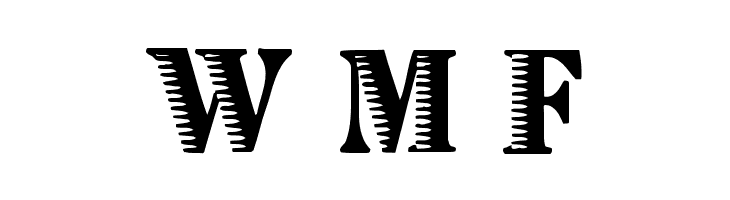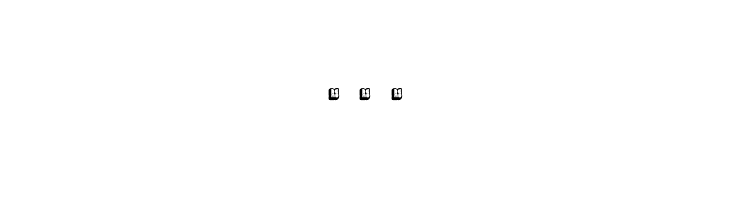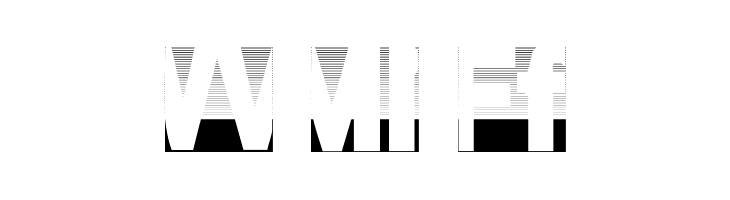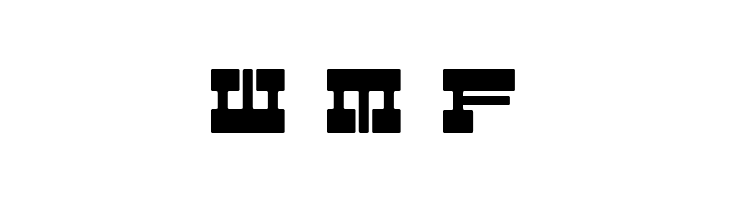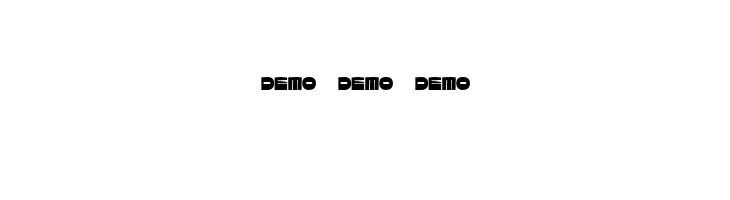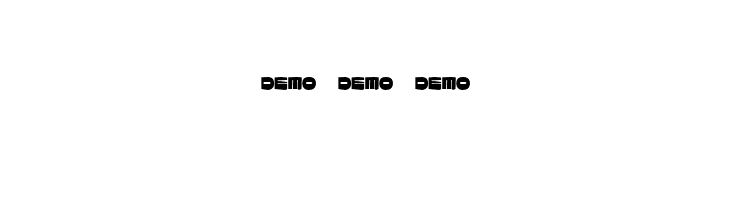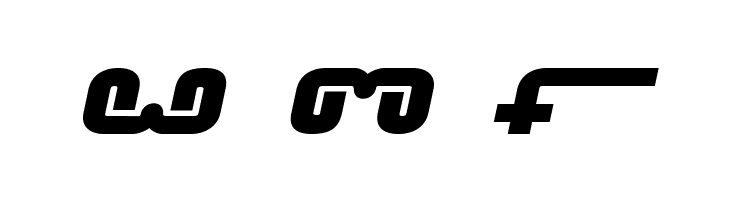
• YUKATHIN_N.CONTE SMILE
A playful and dynamic script font with smooth, flowing lines and a handwritten appearance.
• Yytrium
A bold, 3D-effect font with sharp angles and a dynamic style.
• Z-Most Eye 1
An artistic and whimsical decorative font with intricate designs.
• Z-Most Eye 2
Abstract, illustrative font with surreal, expressive character designs.
• Z-Most Foot
A whimsical, decorative font with cartoon-like illustrated characters.
• Z-Most Kachina 1
A series of artistic illustrations with cultural motifs and playful designs.
• Z-Most Kachina 2
A decorative font inspired by Kachina dolls, featuring intricate and artistic characters.
• Z-Most Kachina 3
A collection of artistic illustrations resembling cultural figures.
• Z-Most Trickster
The image contains artistic illustrations, not a functional font.
• Z-Most Zimple
A whimsical, artistic font with abstract, decorative characters.
• ZagzagHeads
A bold, spiky, and abstract decorative font with a dynamic and energetic style.
• zai Crumpled Paper
A bold, textured font with a crumpled paper effect, perfect for creative projects.
• Zebraesq
A bold serif font with distinctive zebra-like stripes.
• Zero Hour
• ZeroPoints
A playful, informal handwritten font with irregular strokes.
• zfigar
A modern, artistic font with geometric and abstract elements.
• ZigZagThree
A bold, geometric font with a 3D zigzag pattern, offering a modern and dynamic look.
• Zona Armada
A bold, expressive font with a graffiti-like, hand-painted style.
• Zyborgs
• Zyborgs 3D
A bold, geometric 3D font with a futuristic style.
• Zyborgs Condensed
A bold, futuristic, and condensed font with a geometric design.
• Zyborgs Expanded